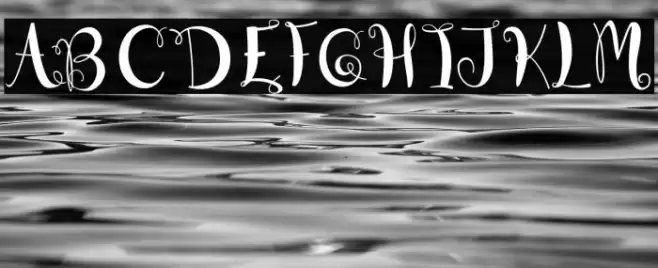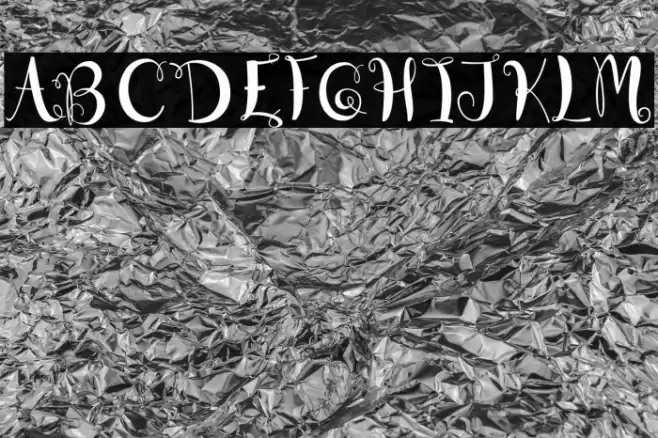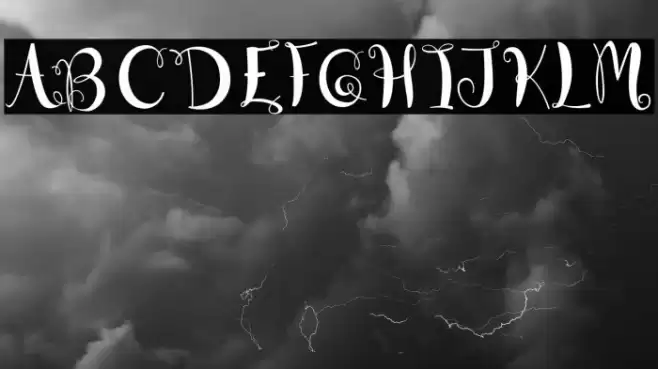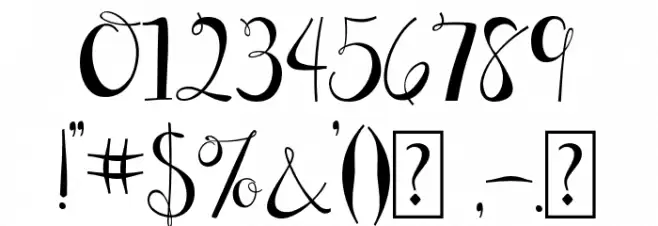
BlueEyes Font
BlueEyes Description
This font features an elegant and whimsical design with intricate swirls and loops that add a playful yet sophisticated touch. The uppercase letters are bold and decorative, with unique embellishments that make each character stand out. The lowercase letters maintain a consistent style, offering a harmonious blend of curves and lines. Numbers are equally stylized, providing a cohesive look throughout. Special characters are creatively designed, maintaining the overall aesthetic. This font is perfect for projects that require a touch of elegance and creativity.
A whimsical and elegant font with intricate swirls and loops from Uncategorized fonts.